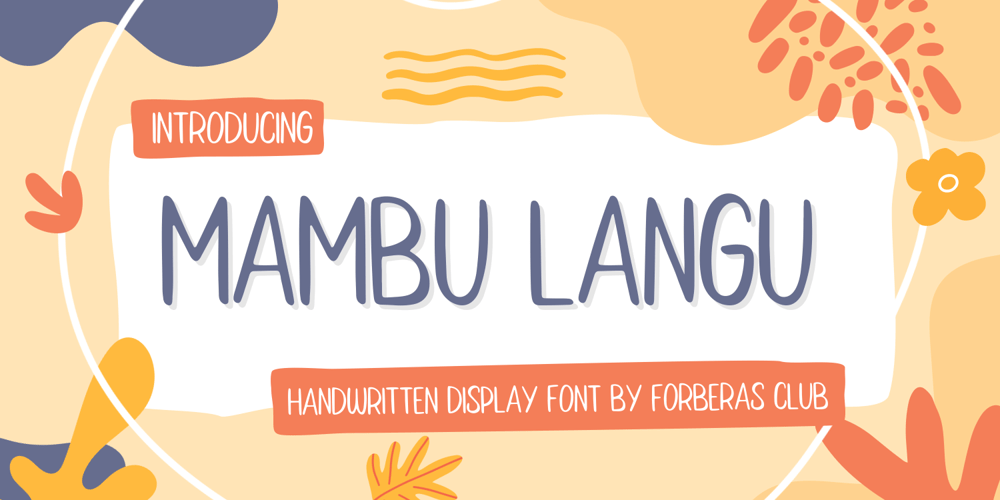
Mambu Langu
Mambu Langu font
Mambu Langu Font Family was designed by ANGGI HERMAWAN and published by Forberas Club. Mambu Langu contains 1 styles and family package options. Mambu Langu font is handwritten style. Nice to application for poster, comic, cover book and tees, diary and poster.